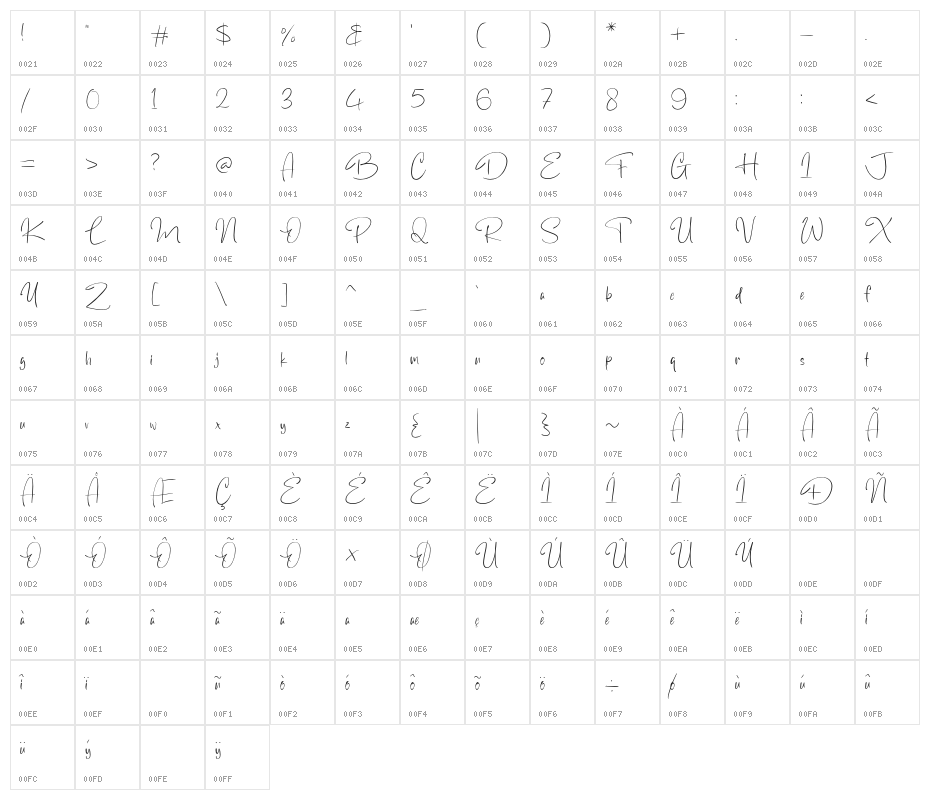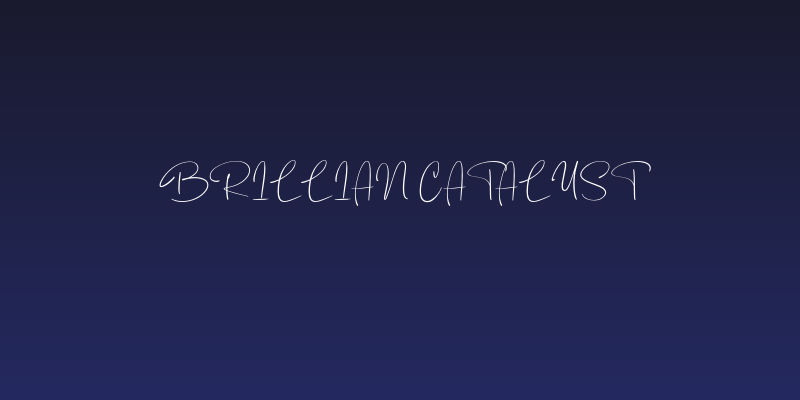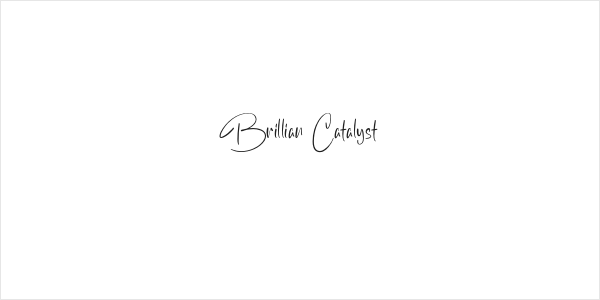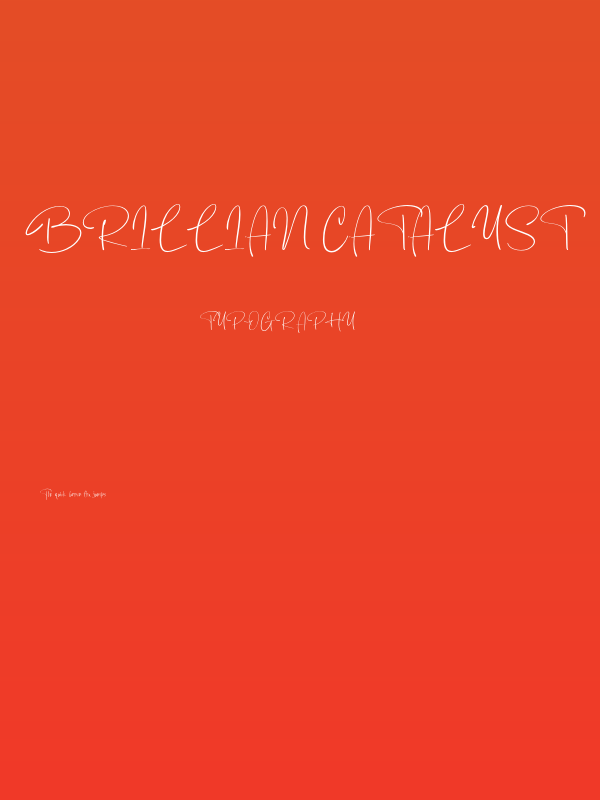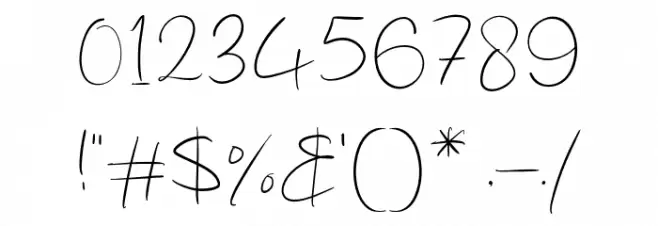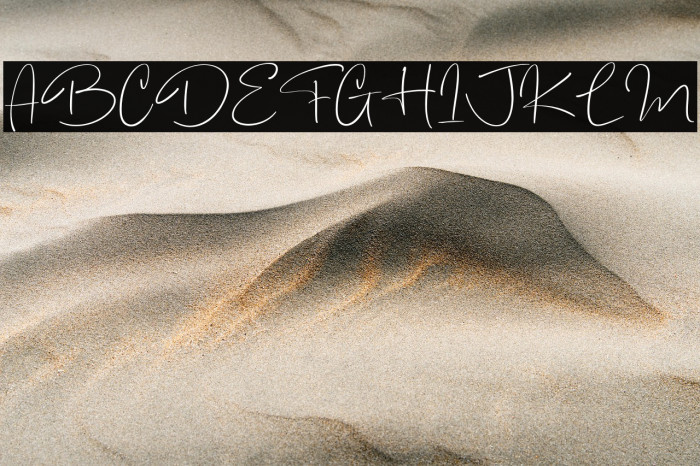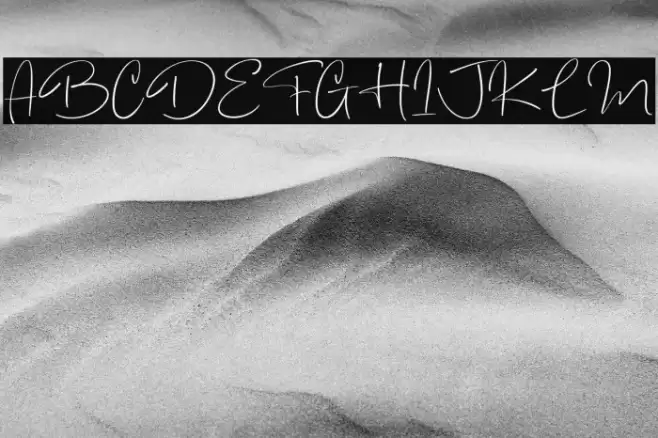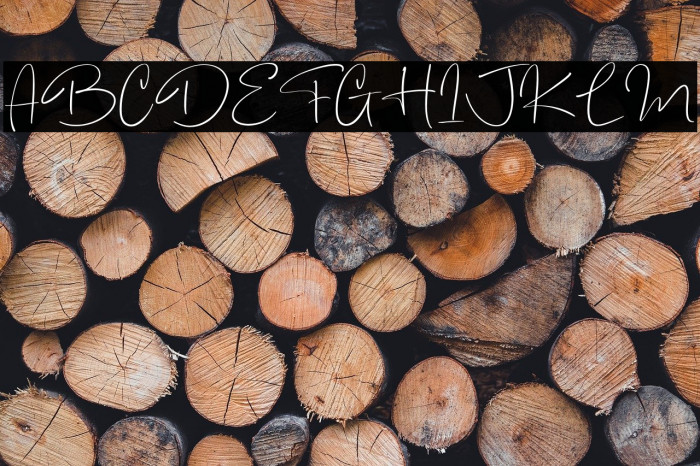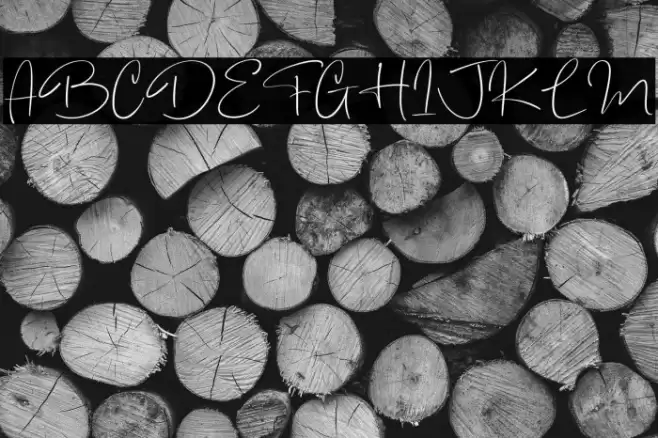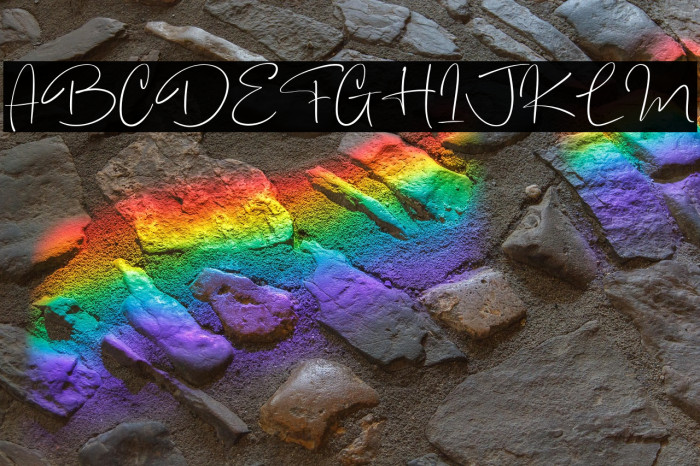
Brillian Catalyst Font
Brillian Catalyst Description
This font features a delicate and flowing script style, characterized by its elegant and fluid strokes. The uppercase letters are tall and graceful, with a slight slant that adds a dynamic feel. The lowercase letters maintain a consistent flow, enhancing readability while preserving the artistic flair. Numbers and special characters are crafted with the same attention to detail, ensuring a cohesive appearance across all elements. The overall design exudes a sense of sophistication and charm, making it suitable for a variety of creative applications.
| Overall Style | Elegant |
| Use Case | Logos, Invitations, Decorative text |
| Proposed Projects | Ideal for wedding invitations, greeting cards, branding, and elegant packaging. |